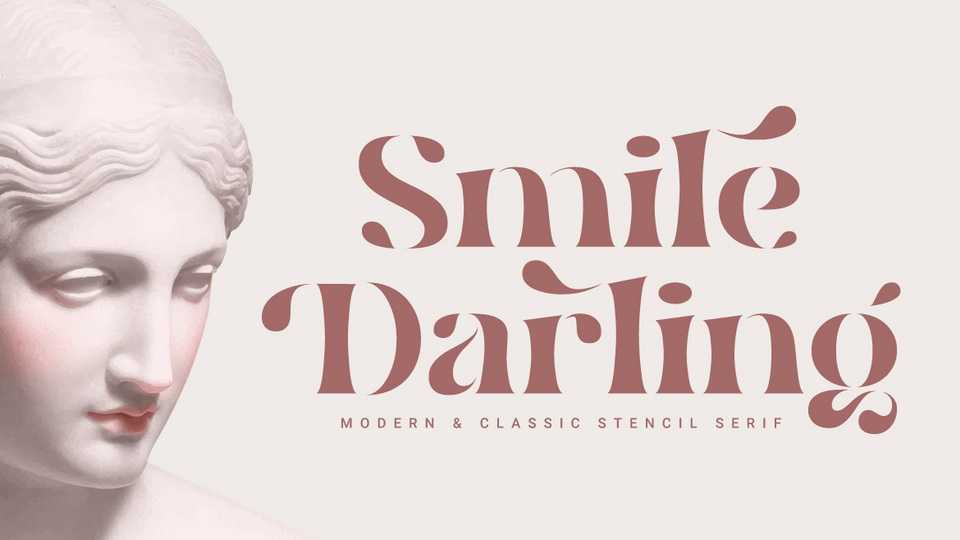
Download Smile Darling font, a modern and chic serif typeface that allows your project to be more beautiful to look at. Smile Darling is perfect for branding, social media posts, magazines, wedding invitations and more.